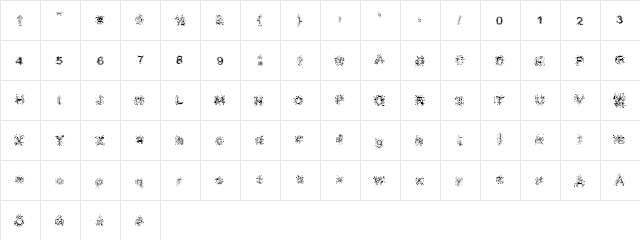
Bio-septic Regular
Design Context for Bio-septic Typeface
Bio-septic is a composed and adaptable typeface that performs quietly and consistently across a wide range of design contexts.